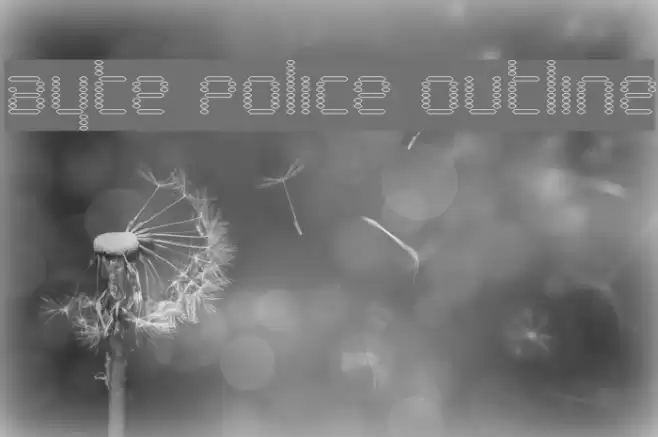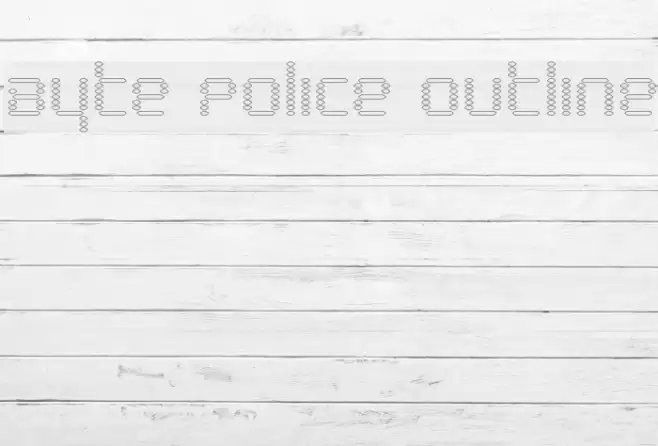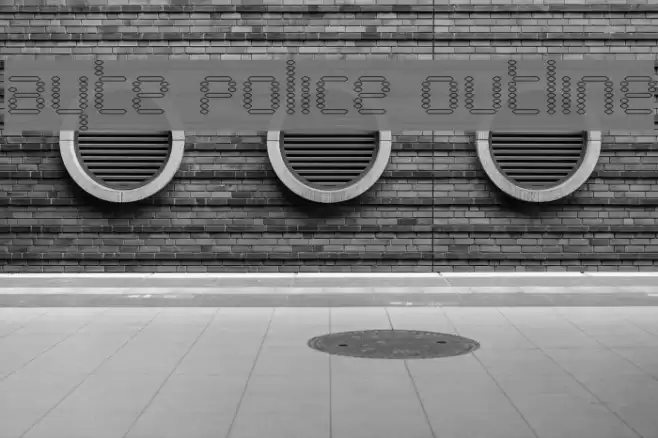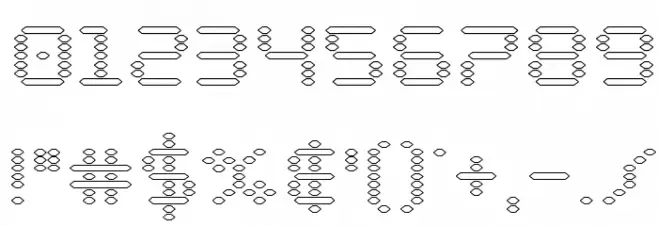
Byte Police Outline Font
Byte Police Outline Description
This font features a unique, futuristic design composed of small circular elements connected by thin lines, forming each character. The outline style gives it a digital, tech-inspired appearance, reminiscent of circuit board patterns. The characters are evenly spaced, maintaining a consistent structure across both uppercase and lowercase letters, as well as numbers and special symbols. The geometric precision and uniformity make it stand out, suitable for projects that require a modern and innovative look.
A futuristic, tech-inspired outline font with circular elements and thin line connections from Uncategorized fonts.
- Proposed Projects: Ideal for tech branding, digital art projects, sci-fi themed designs, and modern advertising campaigns.